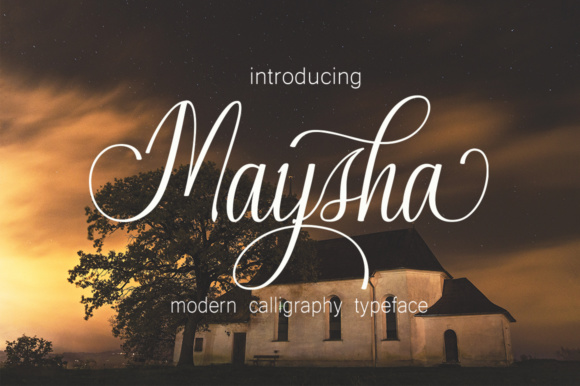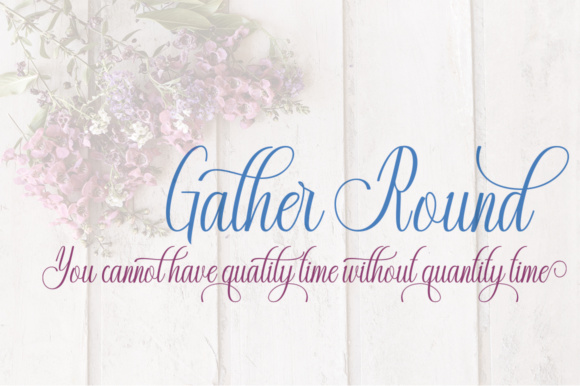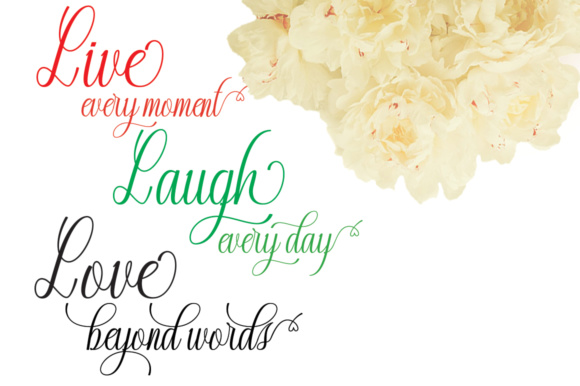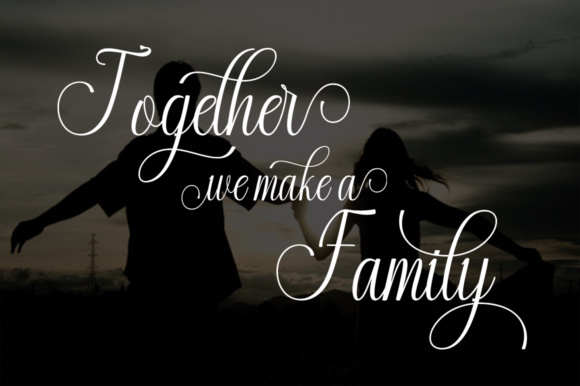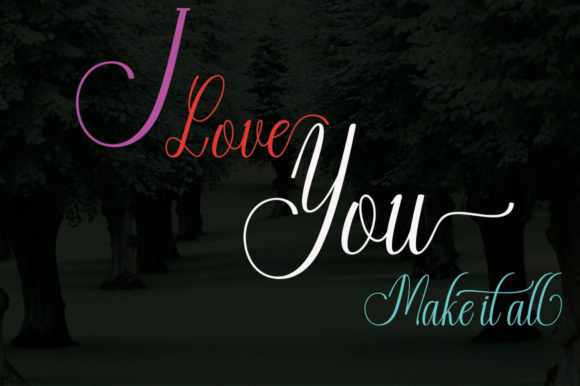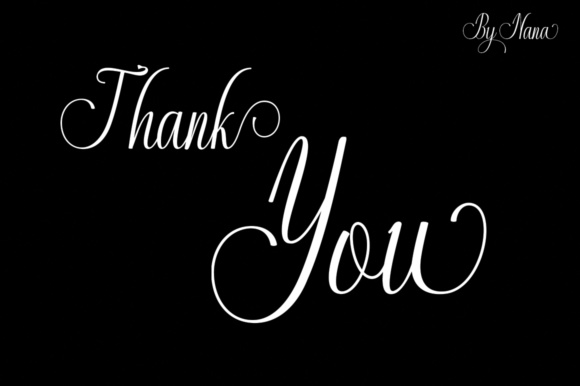
Maysha Font
About Maysha Font
Maysha is a beautiful calligraphy font, ideal for use in a ton of different projects. This font has an ethereal feel, and works perfectly in romantic projects and invitationals.